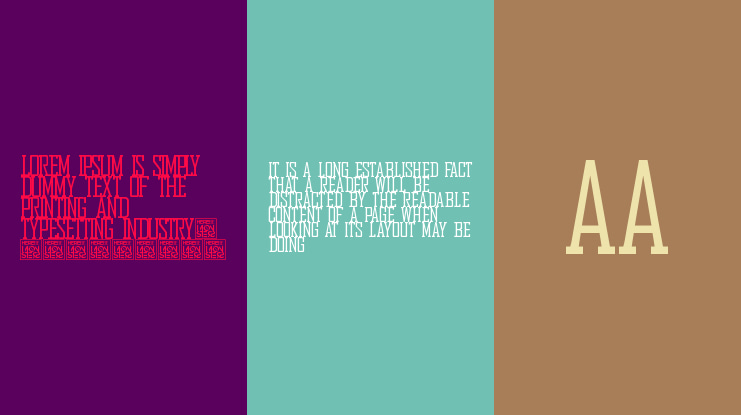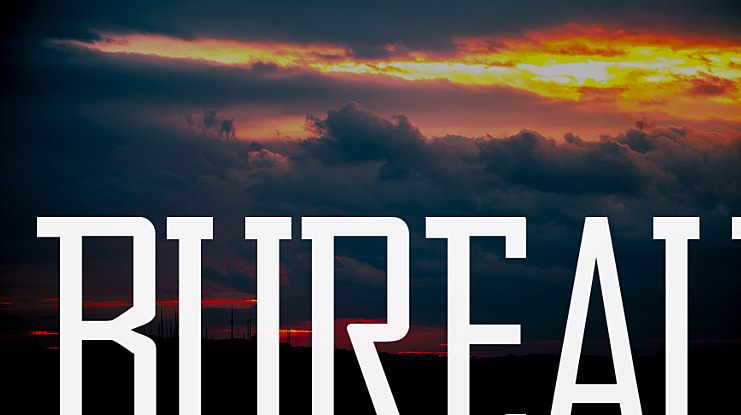
Bureau Font Family
Big Minion
The font, Bureau, is based on the 1932 font ATF Agency Gothic by M.F. Benton, but features some small changes. Designed to be a modern take on Bentons work, Bureau features slab serifs as well as a distressed and HBMs signature "Trend" style for your enjoyment!